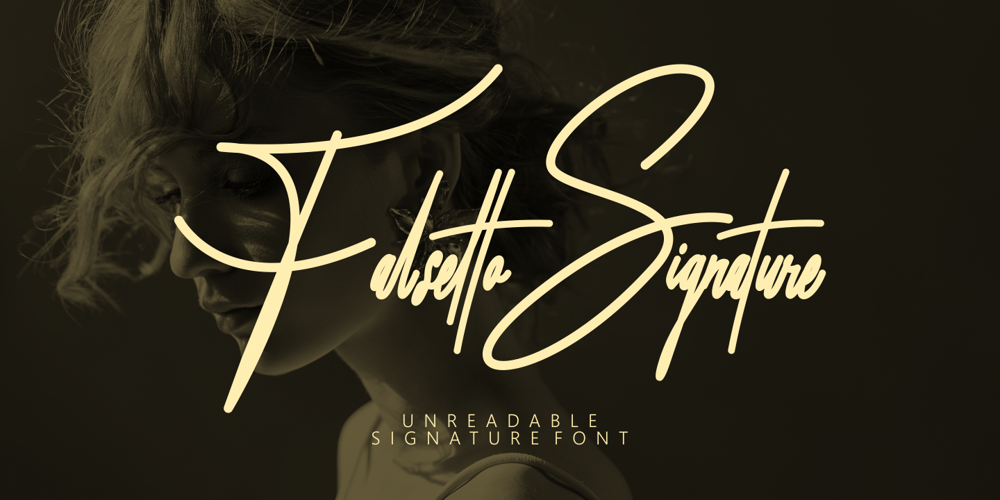
Falsetto Signature Font Family was designed by Putra Novembria Candra Kusuma and published by Putracetol. Falsetto Signature contains 1 styles and family package options. Falsetto Signature is a modern handwritten signature with unreadable letter. I call it “unreadable” because you will see it twice when you read text in this font. The space is very close and the font is flat are the characteristics of this font.Falsetto Signature best uses for signature, heading, cover, branding, invitation, label, poster, logos, quotes, product packaging, header, merchandise, social media & greeting cards and many more.